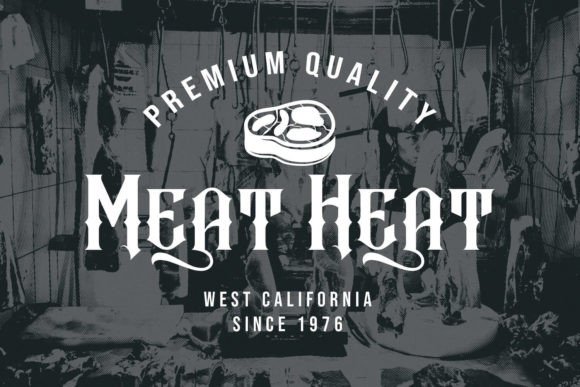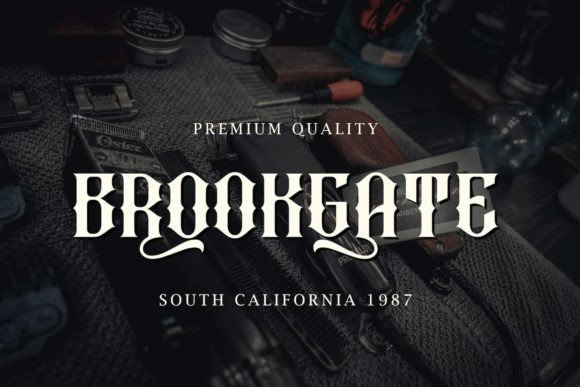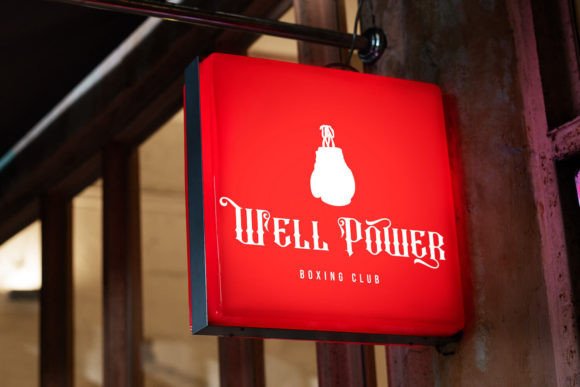
Introduction to Hewina Font
Remember that moment when you stumble upon the perfect font for your creative project, and it instantly elevates the entire design? For designers, finding that perfect font can be a game-changer. It’s a moment that sparks inspiration, and sets the tone for the rest of the project. That’s exactly what we’re excited to share with you today – the Hewina Font.
This stunning Victorian display font has been making waves in the design community, and for good reason. With its unique blend of vintage charm and modern flair, Hewina Font is the perfect addition to any design resource. Whether you’re working on a high-quality design project or simply need a font for a quick creative fix, Hewina Font is sure to deliver.
From its elegant black letter design to its attention to detail, Hewina Font is a true gem. With a transparent background and high-quality design, this font is ready to be downloaded and used in your next project. So, what are you waiting for? Dive in and discover the magic of Hewina Font for yourself.
Key Features of Hewina Font
- Designed to be highly legible and readable, with a unique aesthetic that sets it apart from other fonts.
Honest Review: Hewina Font
I recently stumbled upon the Hewina Font, and I must say it’s been a great addition to my design resources. The font is available for free download, which is always a plus. Its modern design makes it perfect for creative projects that require a touch of elegance.
- ✨ High quality: The font is crisp and clear, making it perfect for printing or digital use.
- ✨ Versatile: The font comes in multiple weights and styles, making it easy to use in a variety of creative projects.
However, there are a few limitations to consider. ⚠️ The font is not suitable for use in small text sizes, as the characters can become blurry. Additionally, the font is not as extensive as some other fonts in its category.
Overall, I’m impressed with the Hewina Font. It’s a great addition to any designer’s toolbox, and it’s perfect for designers working on creative projects that require a modern, elegant look. With its transparent background and high-quality design, it’s a great resource to have on hand.
Introduction to Hewina Font
Hewina Font is a high-quality, free download design resource perfect for creative projects. With its unique style and transparent background, it’s an ideal choice for designers looking to add a touch of elegance to their work.
Tips for Getting the Most Out of Hewina Font
To get the most out of Hewina Font, use it in combination with other design elements to create a cohesive and visually appealing design. Experiment with different font sizes, colors, and arrangements to find the perfect balance for your creative project.
Common Use Cases for Hewina Font
Hewina Font is commonly used in a variety of design projects, including:
- Business cards and brochures
- Event signage and banners
- Digital products and e-books